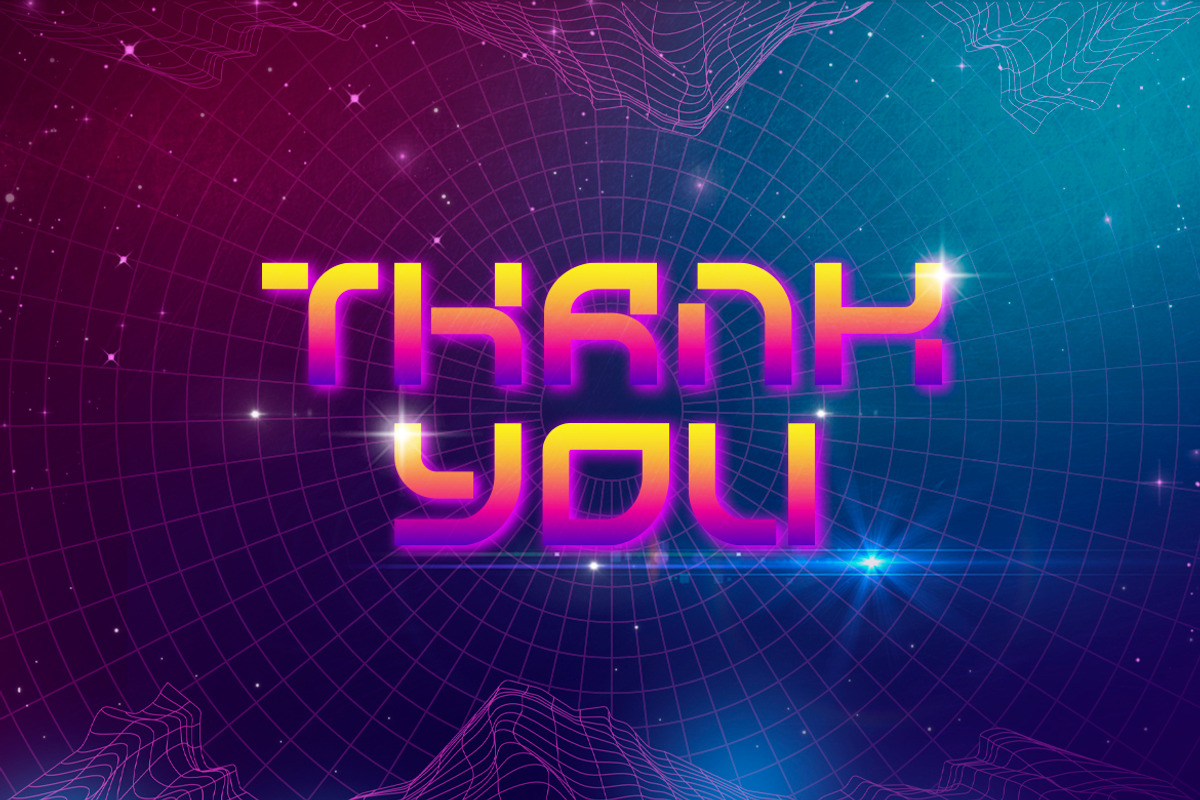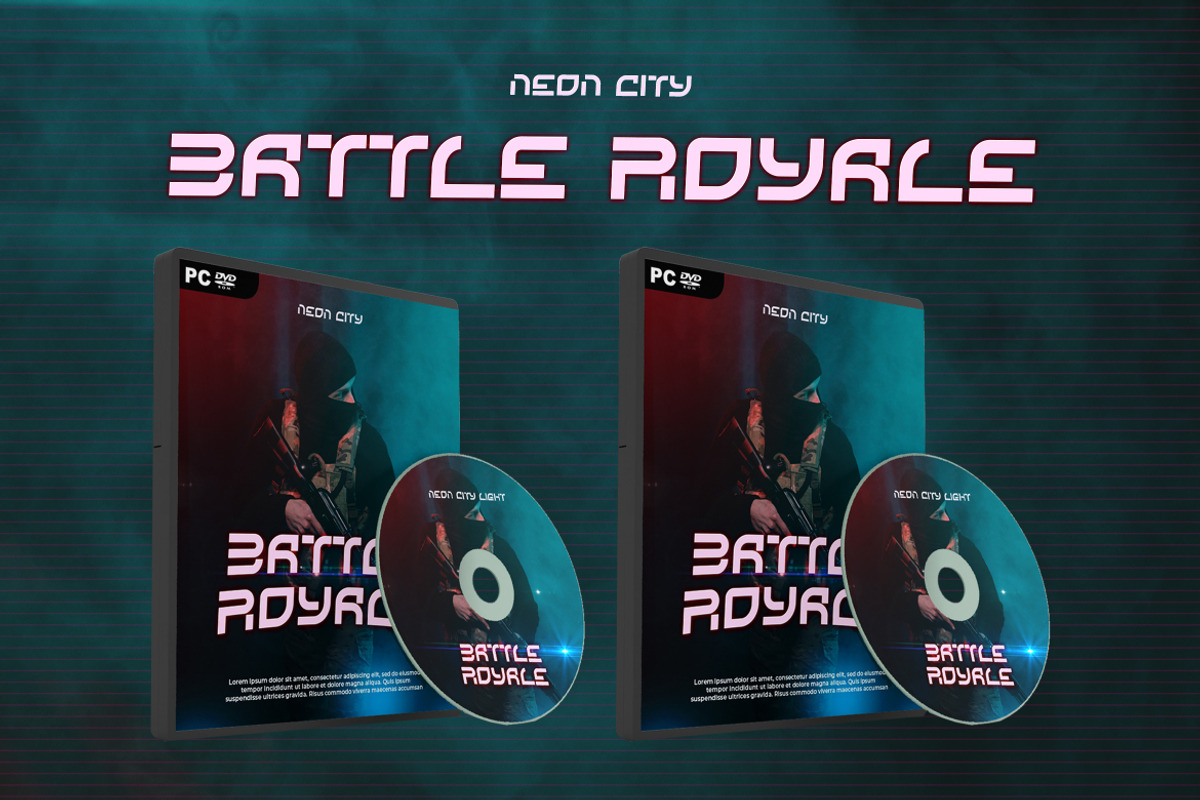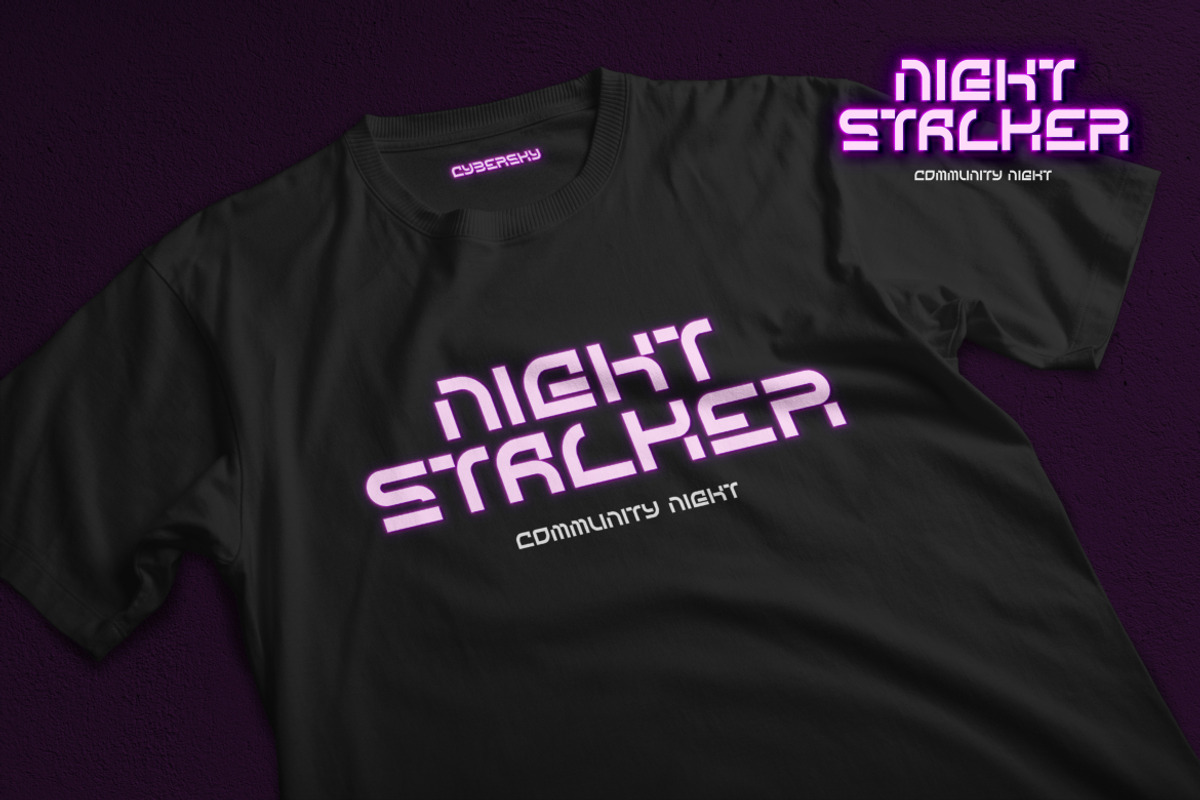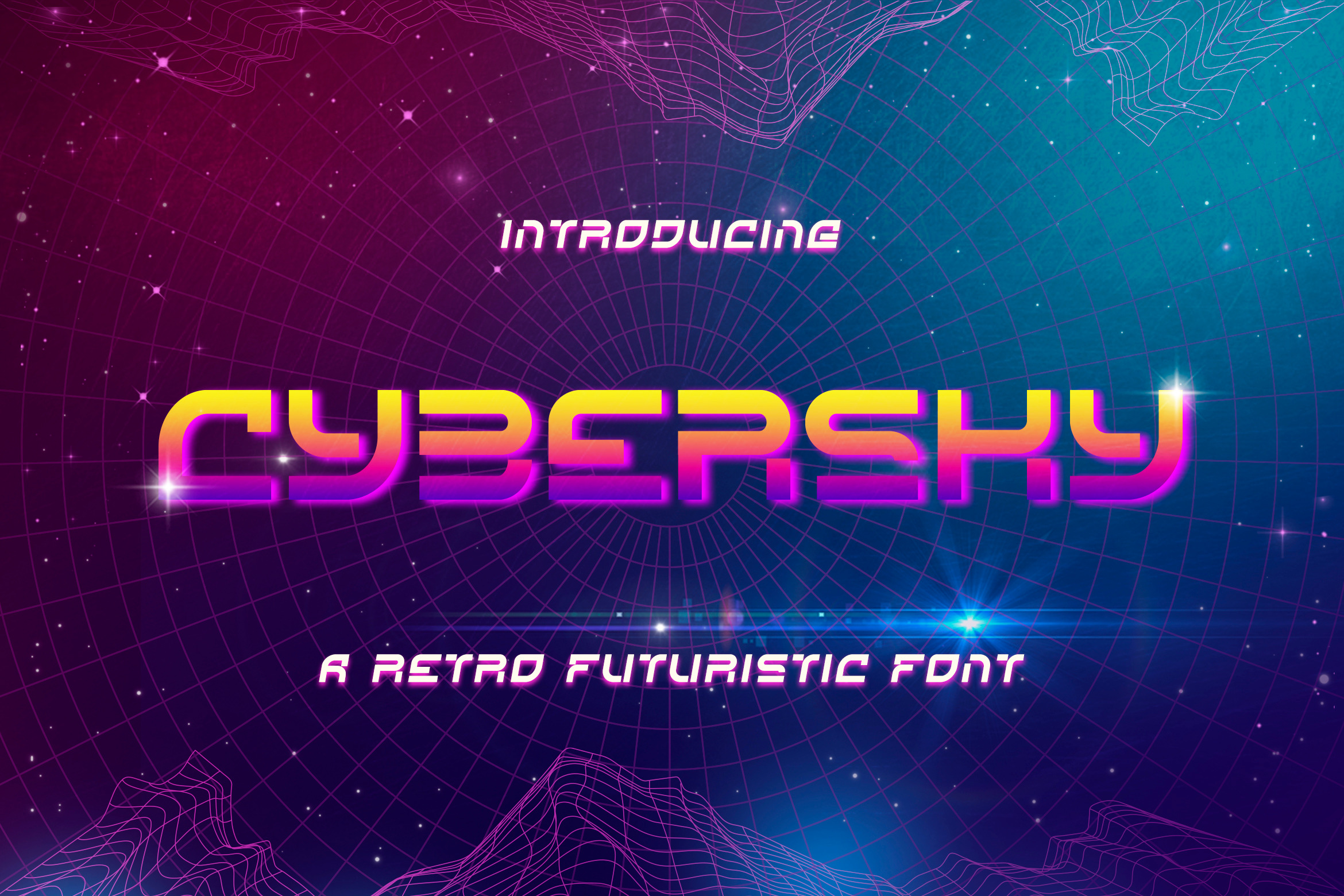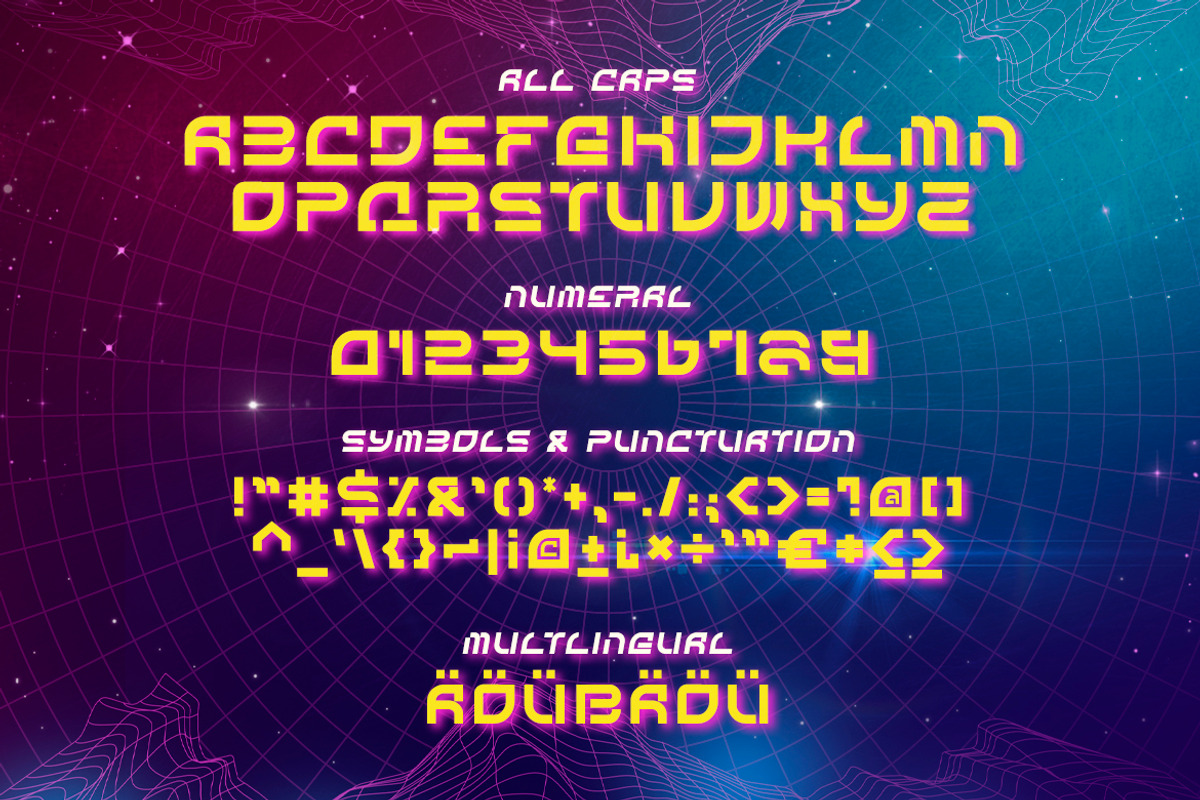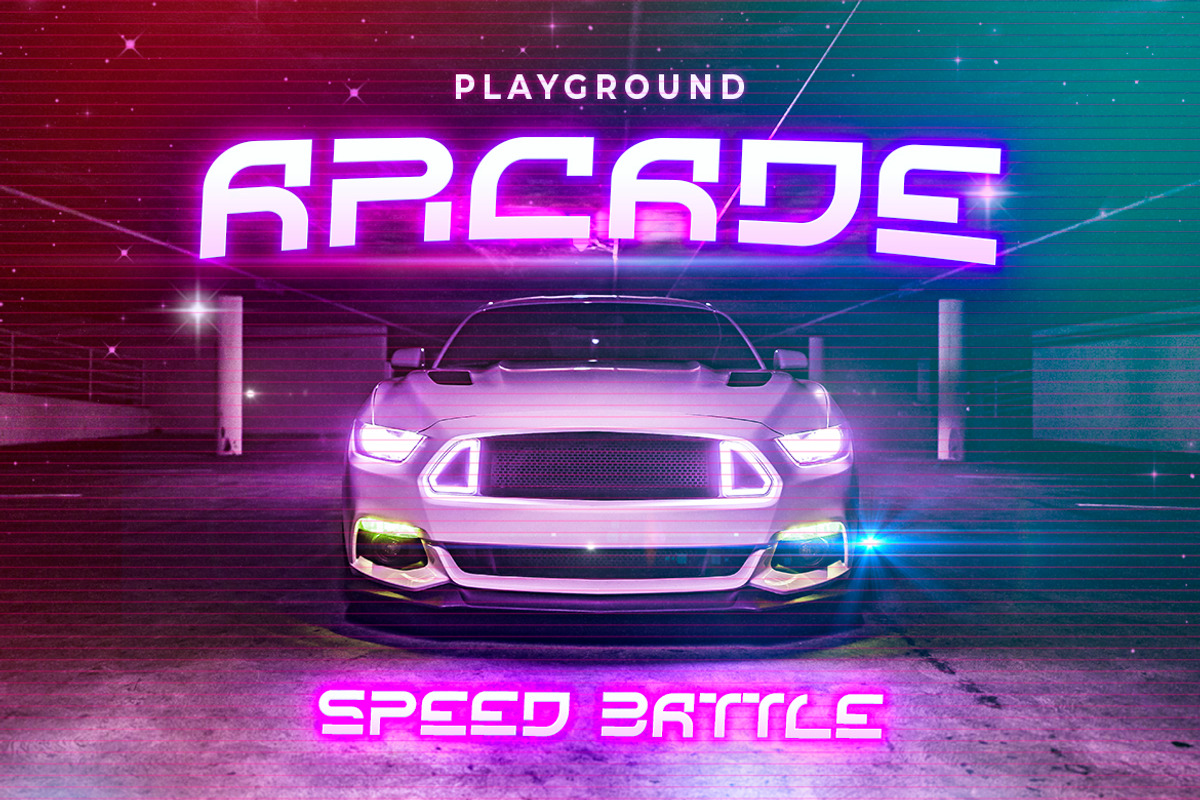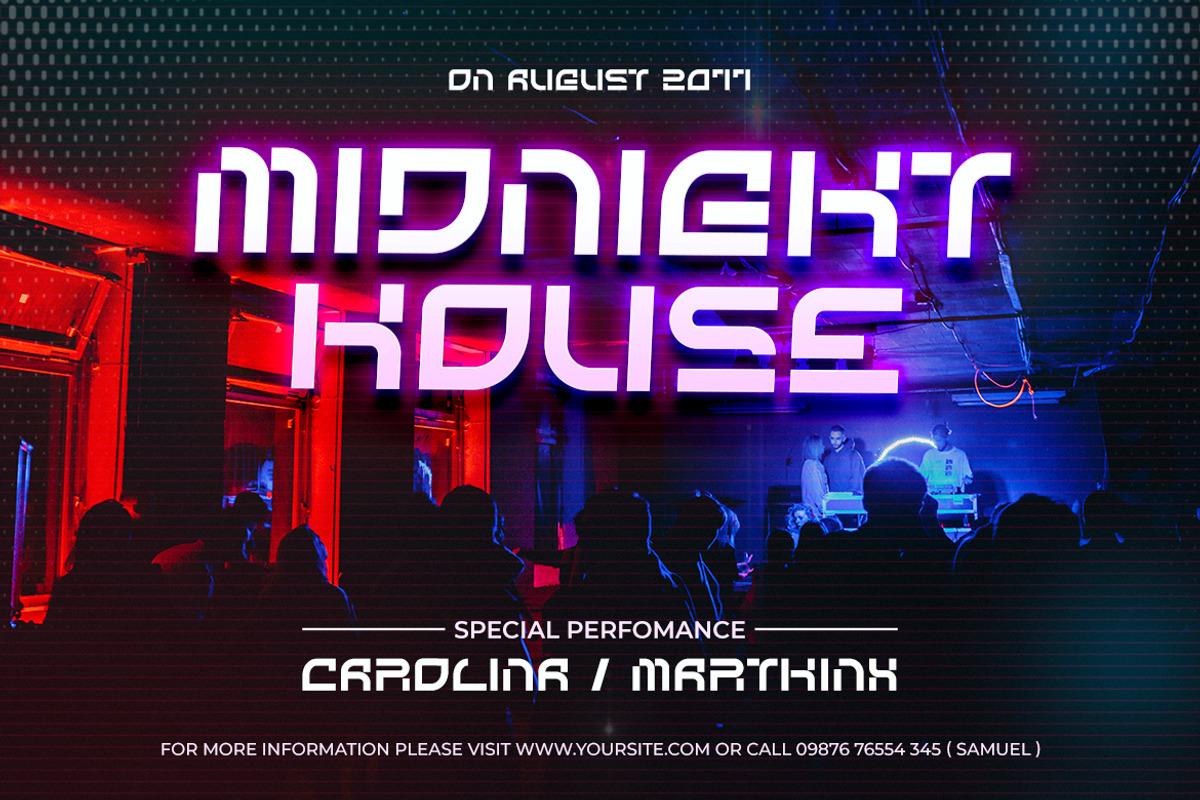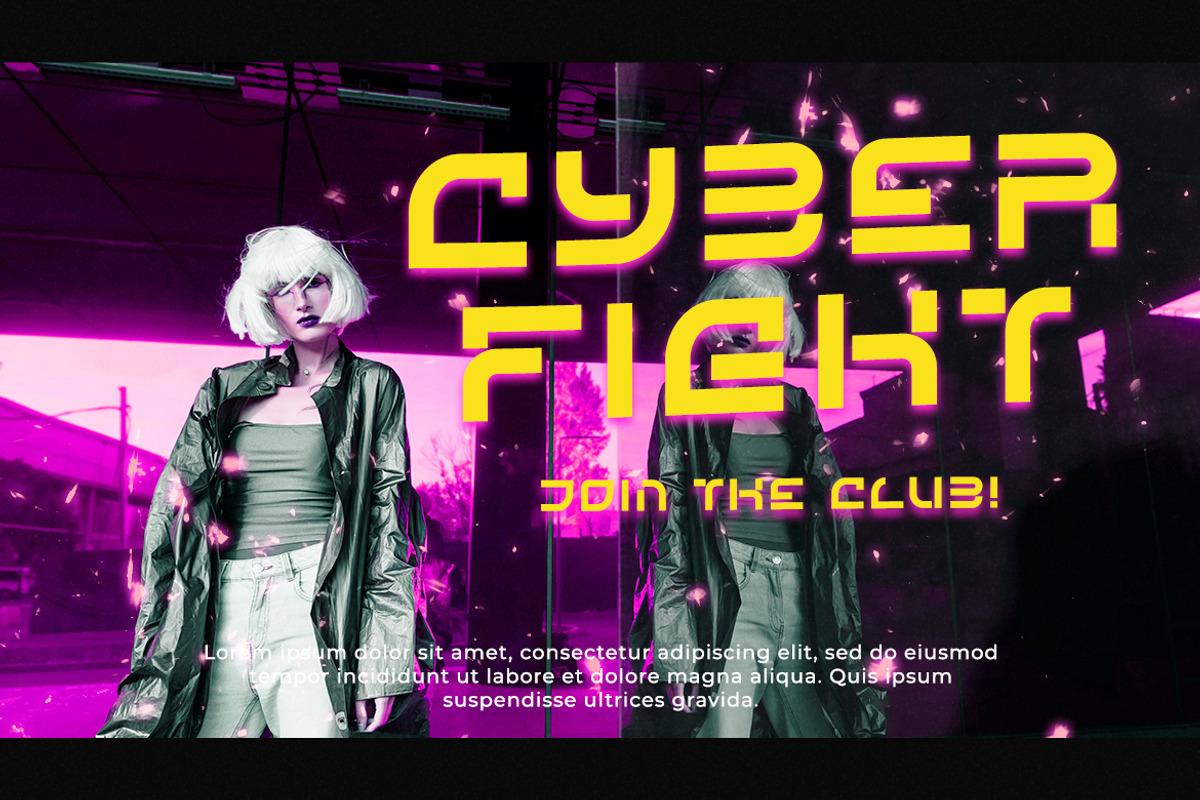
Cybersky - Retro Futuristic Font
Cybersky is a sharp, angular, futuristic font in a retro style. Perfect for sci-fi themes, night street race and space adventures!